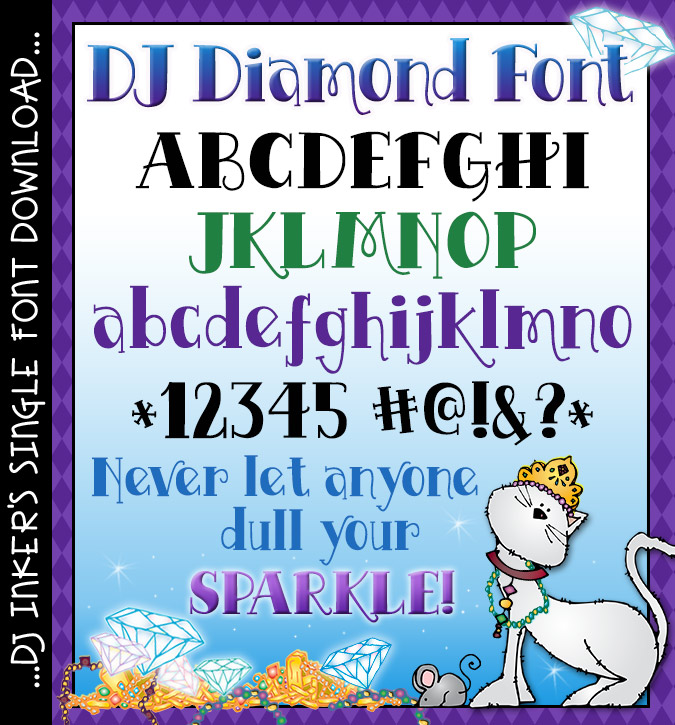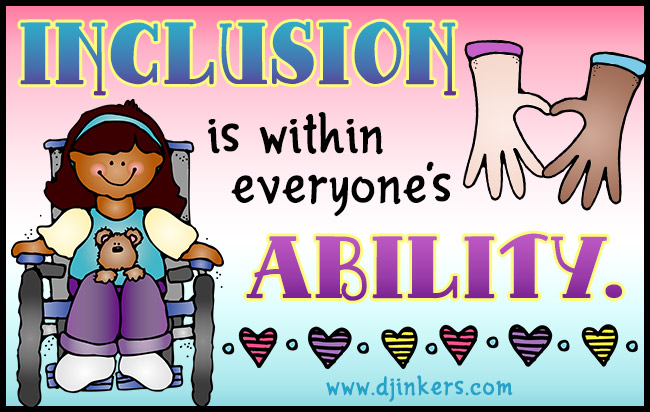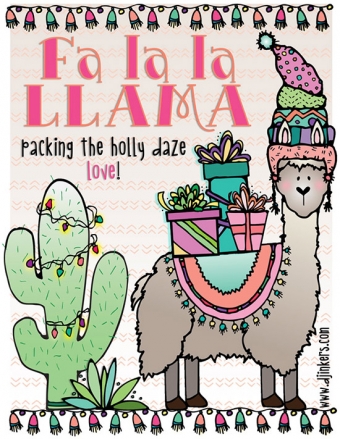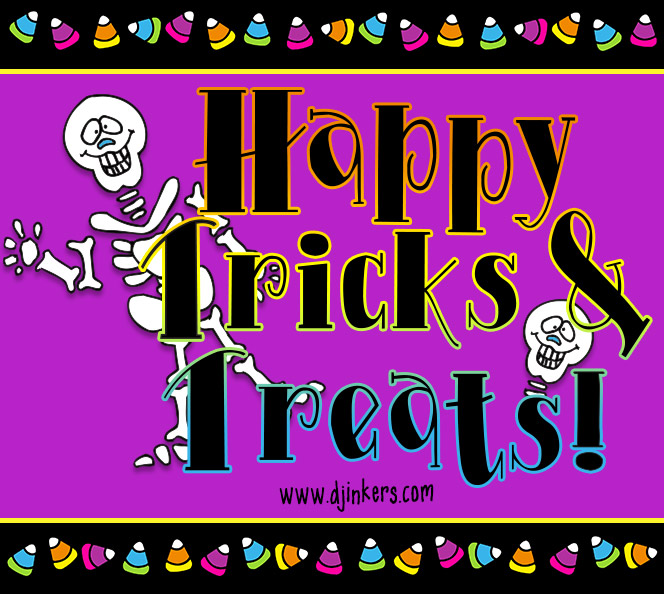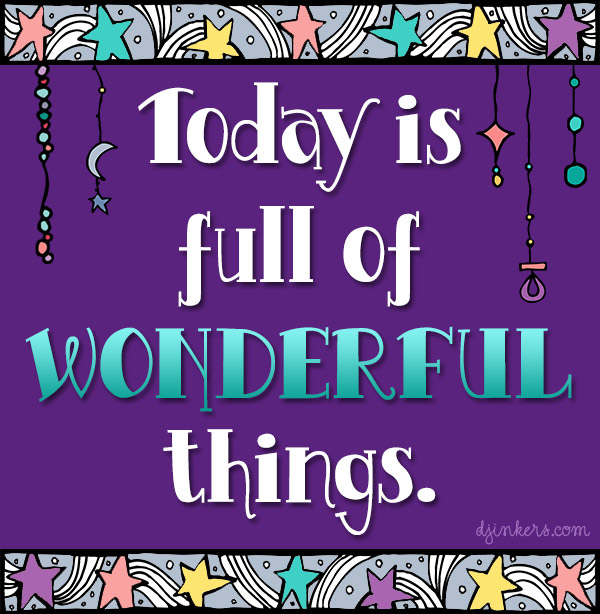
DJ Diamond Font Download
Everyone loves diamonds... so it felt like the perfect name for this bold
& stylish font. DJ Diamond is strong and striking... so it's a great
way to put attention on your text. Download yours today and add a little
sparkle to your creations for crafting, parties, posters and more.